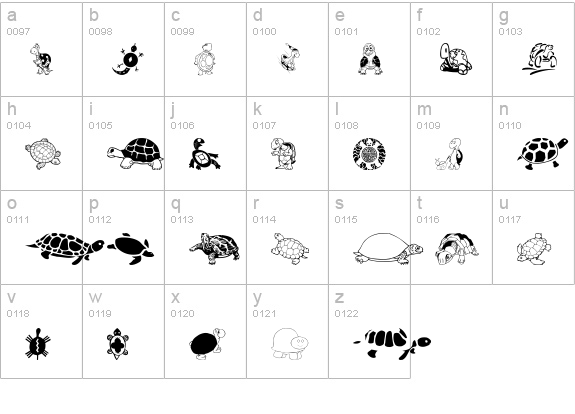
Keya's Turtles Font Details
Keya's Turtles font is a captivating and enchanting typeface that will bring a sense of whimsy and playfulness to your designs. With its unique and intricate turtle-inspired letterforms, this font is perfect for adding a touch of nature and tranquility to any project. The graceful curves and detailed strokes of Keya's Turtles font create a mesmerizing visual experience that will captivate and engage your audience. Whether you are designing a logo, invitation, or poster, this font will add a delightful and charming element to your work. One of the best features of Keya's Turtles font is that it is completely free to use. You can download this font at FontsMarket.com, where it is available for instant download. This means that you can start using this beautiful font in your designs right away, without any restrictions or fees. Keya's Turtles font is not only visually stunning but also highly versatile. It can be used for a wide range of design projects, from branding and packaging to website headers and social media graphics. Its flexibility makes it a valuable addition to any designer's toolkit. So, if you are looking for a font that will add a touch of whimsy and nature to your designs, look no further than Keya's Turtles font. Download it for free at FontsMarket.com and let your creativity soar.